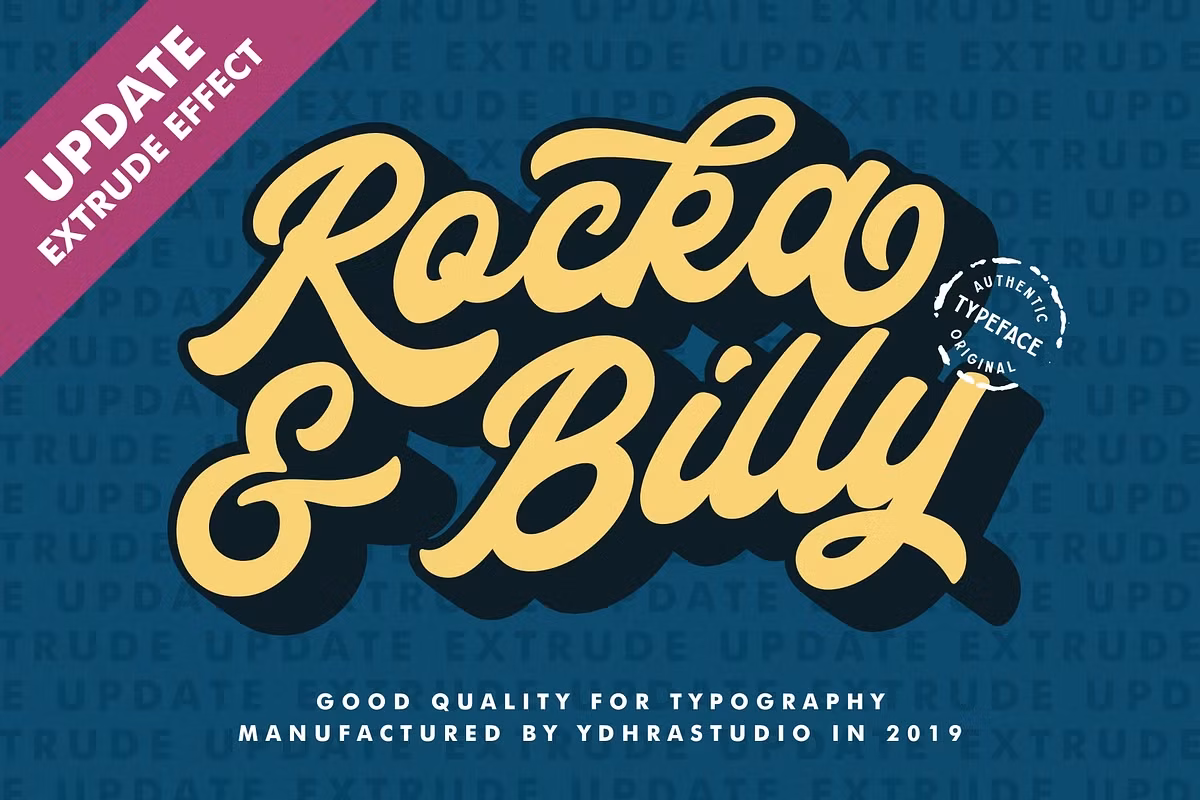
Please note, you must purchase this font for commercial use. However, you can easily download Rocka & Billy Font Free Download for personal use and testing purposes. Rocka & Billy Font is a unique and stylish font duo, combining a bold, edgy serif with a playful script font. Perfect for projects that require a combination of strength and creativity, this font works well for branding, logos, posters, invitations, and more. Whether you’re creating an event promotion, a modern brand identity, or stylish typography for a creative project, Rocka & Billy Font Free Download will bring personality and flair to your designs. Download Rocka & Billy Font Free Download today and explore its potential before opting for a commercial license.